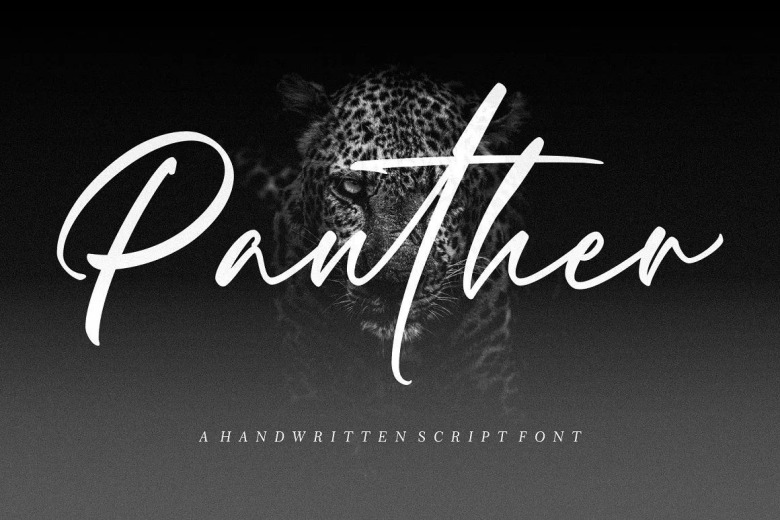
Panther Font
Hi there! I’m Panther, the Handwritten Script Font. All my letters are carefully and nicely written just in a few simple strokes. That’s why I am so cool, stylish, and useful for creating beautiful hand-crafted signature logos, badges, social media posts, and more. It’s affordable, personal, and can be easily used in your designs.
Panther Handwritten Script Font